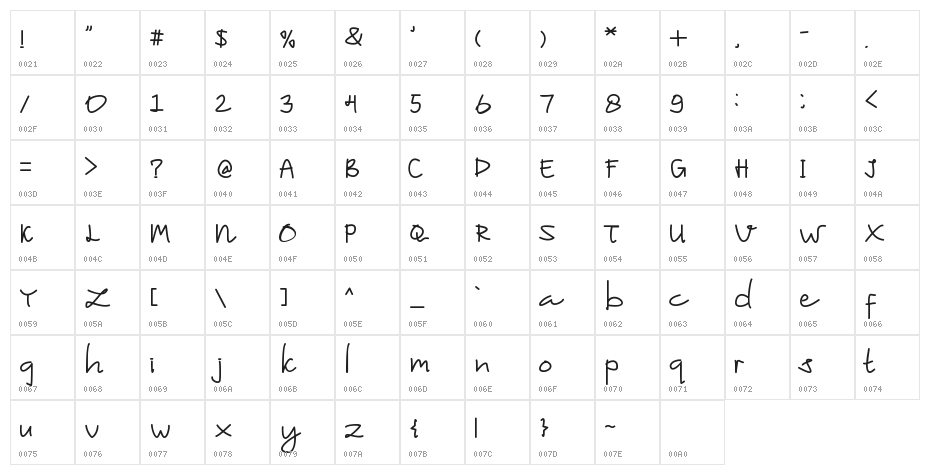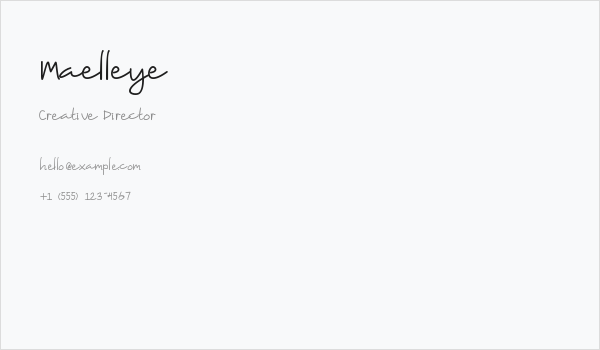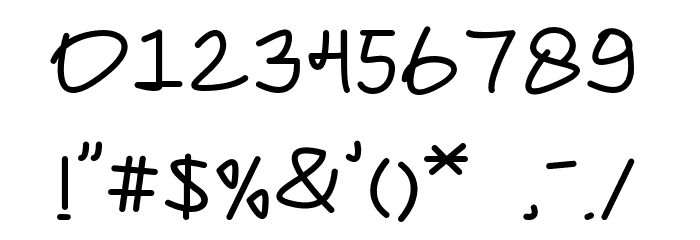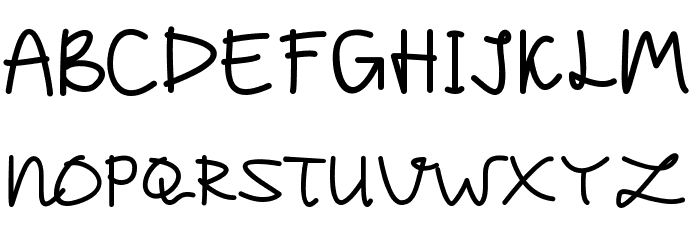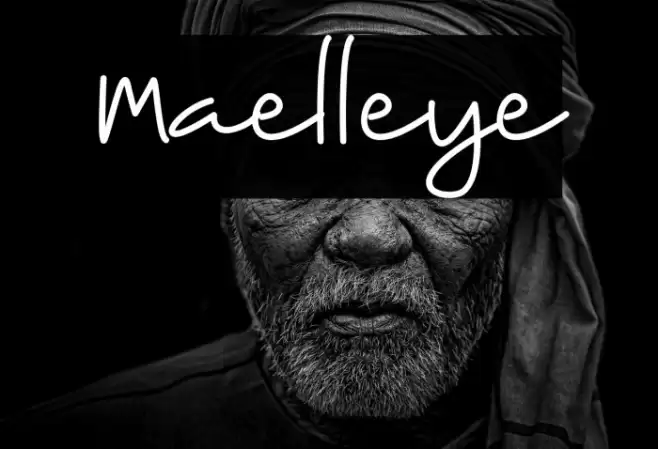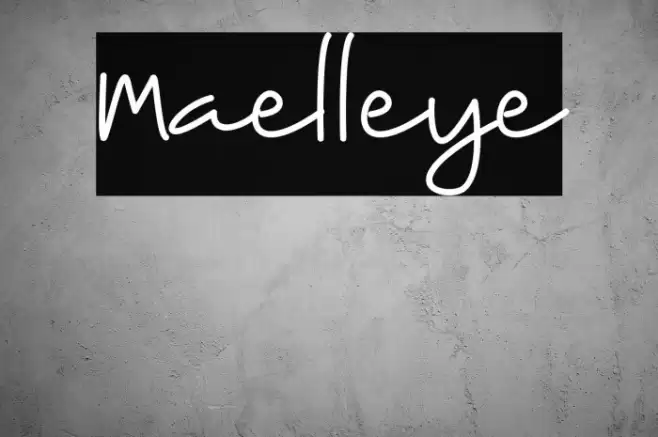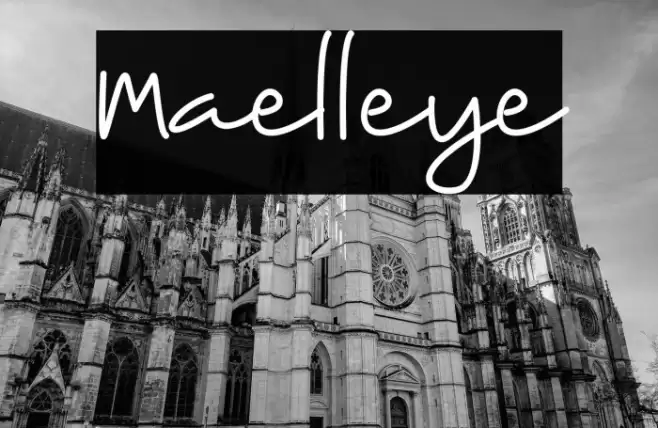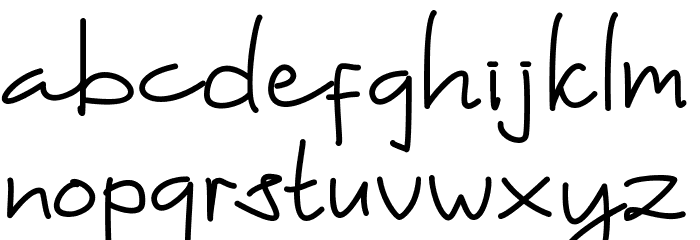
Maelleye Font
Maelleye Description
This font features a playful and casual handwritten style, characterized by its smooth, flowing lines and slightly irregular shapes. The letters have a natural, organic feel, reminiscent of a personal note or a friendly message. The uppercase and lowercase letters maintain a consistent style, with rounded edges and a slight slant, adding to the informal and approachable appearance. The numerals and special characters follow the same design principles, ensuring a cohesive look across all elements. This font's charm lies in its simplicity and the warmth it conveys, making it suitable for projects that require a personal touch.
| Use Case | Headlines, Informal text, Personal notes |
| Proposed Projects | Ideal for greeting cards, personal invitations, children's books, and informal branding. |